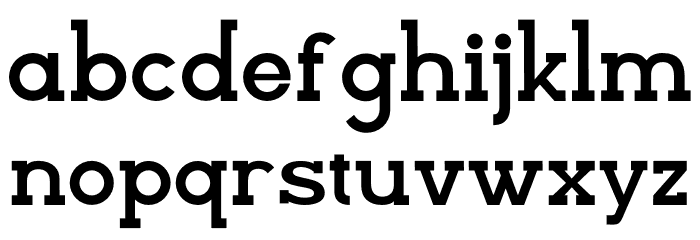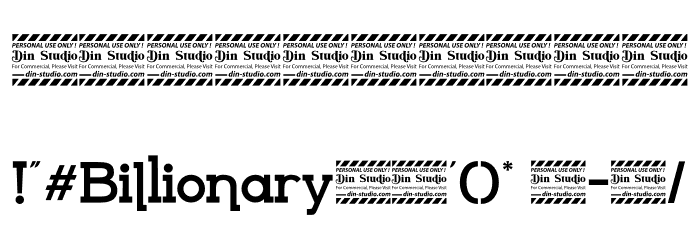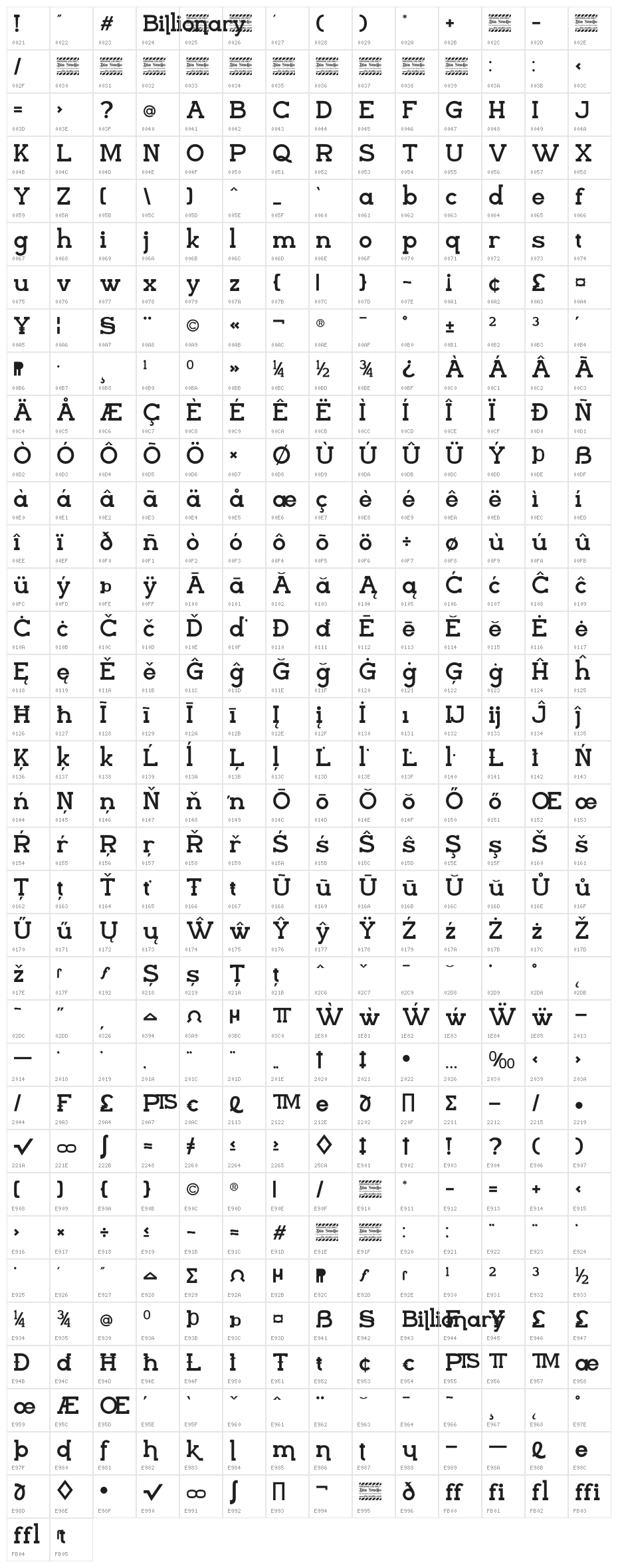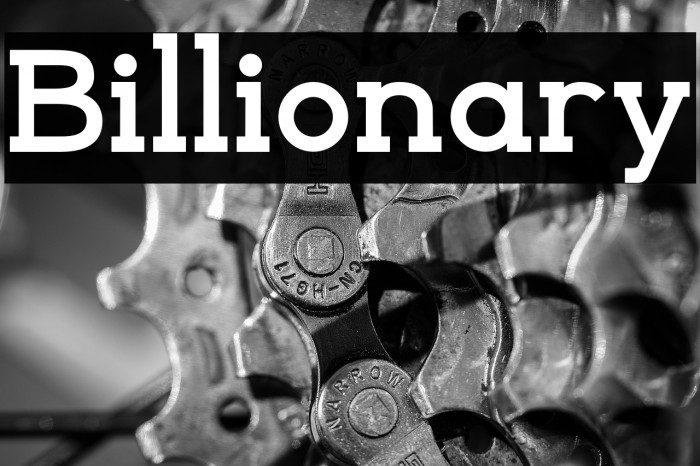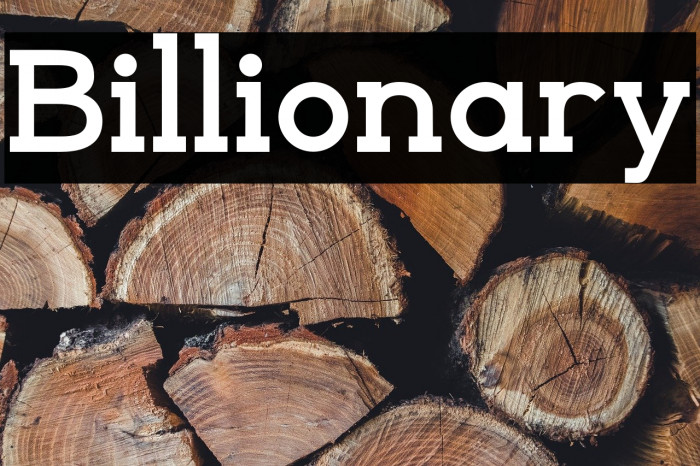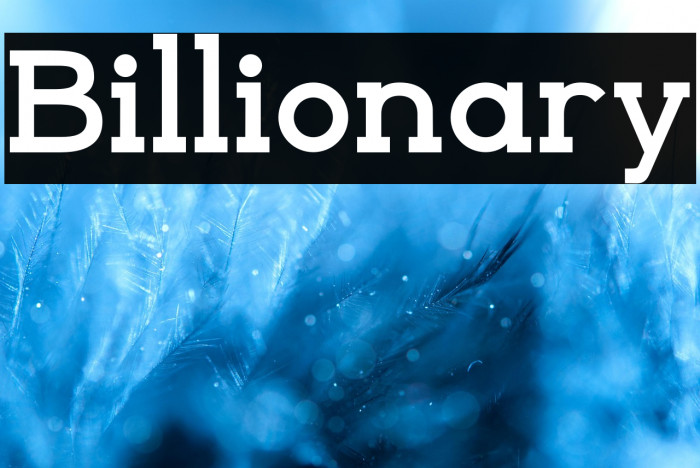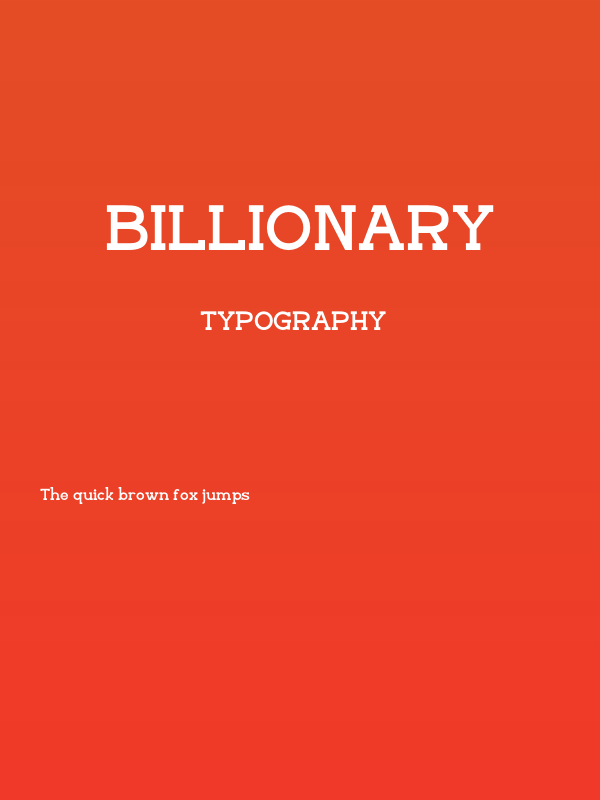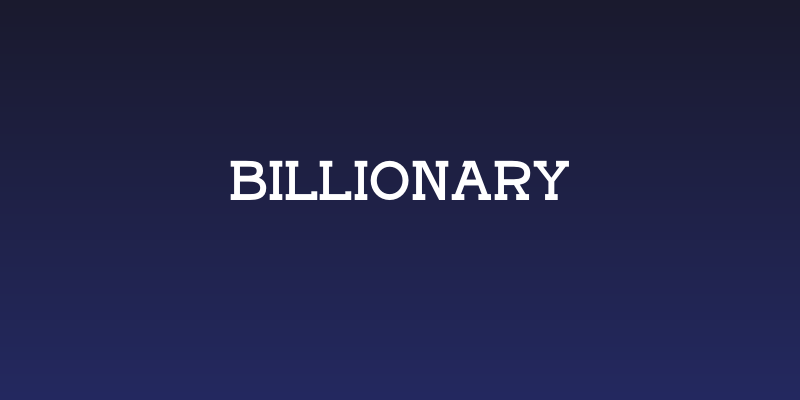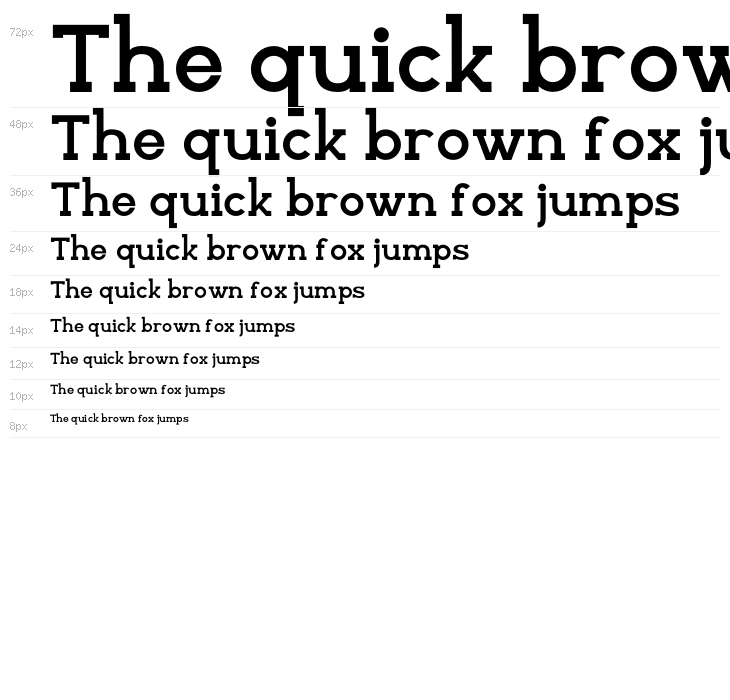
Billionary Font
This font exhibits a bold and confident style, characterized by its thick, uniform strokes and geometric shapes. The uppercase letters are strong and assertive, with a slight modern flair that makes them stand out. The lowercase letters maintain a consistent weight, providing a harmonious balance between the characters. The numerals are clear and legible, designed to complement the overall boldness of the font. Special characters are crafted with the same attention to detail, ensuring they integrate seamlessly with the rest of the typeface. This font is ideal for making a statement, whether in headlines, logos, or branding materials.
A bold, geometric font with strong, uniform strokes and modern appeal.
- Proposed Projects: Ideal for branding, headlines, posters, and logo design.